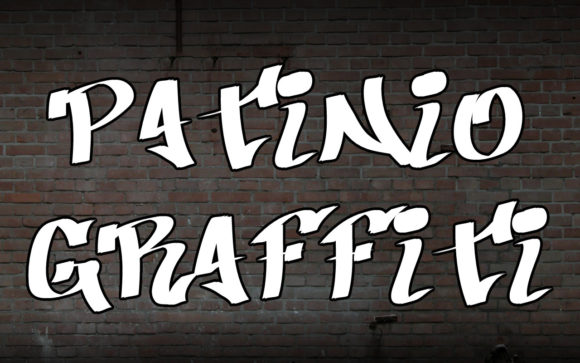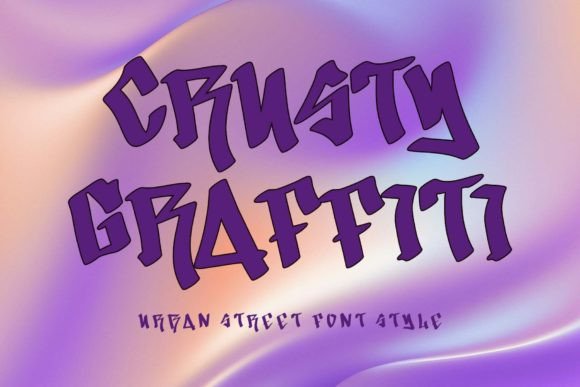
How to Choose Graffiti Fonts for T-Shirt Design
The best graffiti fonts for t-shirt design do more than imitate paint on a wall. They need enough weight to survive printing, enough personality to carry a short phrase, and enough clarity to register while someone is wearing the shirt—not just while the artwork is enlarged on a monitor.
My biggest filter is structure. A wild alphabet can look impressive in a specimen image but turn into an unreadable knot once it is reduced, distressed, arched, or printed over a dark garment. For shirts, I usually favor graffiti fonts with recognizable letter skeletons, substantial strokes, and controlled interior spaces.
The 20 options below cover chunky throw-up lettering, fast tags, distressed street type, blackletter hybrids, monoline alphabets, and color fonts. I have not physically printed and tested these fonts. My recommendations are editorial judgments based on their published character styles, included features, apparent construction, popularity signals, and likely t-shirt applications.
- Best overall: Retro Graffiti
- Best for polished streetwear: Street Wear
- Best for gaming and futuristic apparel: Patinio Graffiti
- Best for rough punk merchandise: Crusty Graffiti
1. Retro Graffiti
My pick for the most versatile bubble-style headline
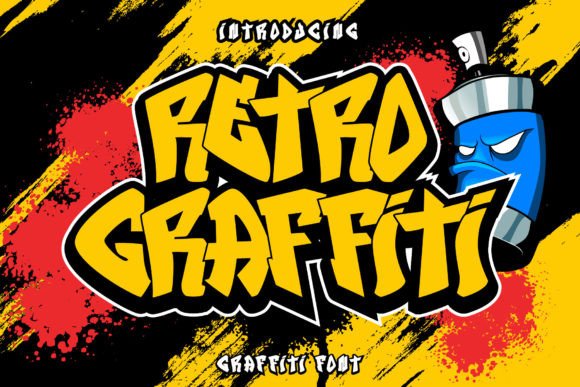
Retro Graffiti is where I would start for a large, friendly word across the chest or back. Its chunky display structure has the inflated energy associated with throw-up lettering, but the characters remain controlled enough for casual apparel, youth collections, skate graphics, and upbeat event shirts.
Because the letters already carry plenty of mass, I would resist adding several heavy outlines. A single contrasting stroke, a compact shadow, or a small handwritten subline should be enough.
Best for: Oversized chest words, youth streetwear, skate-inspired shirts
Key features: Chunky letterforms, rounded graffiti styling, bold display weight
2. 5cent Free Graffiti Font
My pick for an established free option
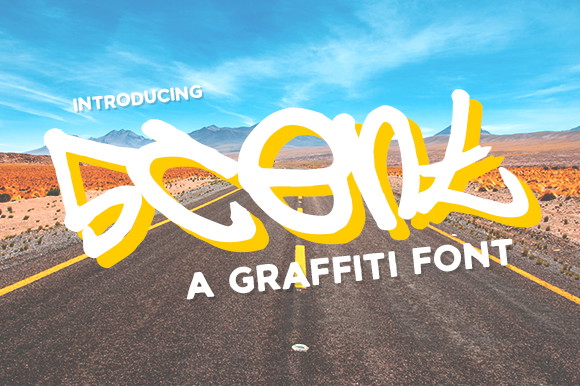
I like this kind of face for one- or two-word designs where the outline of the word is more important than a long slogan. Let the irregular contours create the movement, then use a quieter sans serif for dates, locations, or collection names.
The tradeoff is that a highly stylized word shape can become busy when every letter is given a separate texture, offset, and shadow. Build the hierarchy before adding effects.
3. Street Graffiti
My pick for sportswear-style graffiti
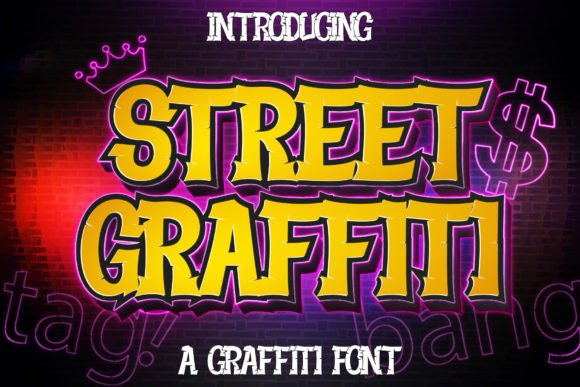
Street Graffiti combines chunky construction with a more forceful, athletic stance. Its product description specifically positions it for t-shirts, sportswear, clothing, logos, and advertising, and its page showed 47 favorites when researched.
I would use it for a team name, neighborhood reference, dance crew, or fictional athletic label. The broad strokes should support a strong two-color treatment: one fill and one outline, perhaps with a restrained inline or shadow.
It is less suitable for a six-line quote. This is a display face that wants to be seen large. Give it a short message and enough negative space to preserve the individual letter shapes.
Best for: Sportswear, team shirts, urban event merchandise
Key features: Bold chunky forms, high-impact display style, clothing-oriented positioning
4. Don Graffiti
My pick for a loose, hand-drawn urban mood
Don Graffiti has a bold handwritten quality rather than a carefully constructed bubble-letter appearance. That makes it useful when a shirt needs to feel expressive, quick, and slightly rough around the edges.
I would pair it with a condensed all-caps sans serif, especially when the design includes a small category label such as “Independent Supply,” “Night Sessions,” or a city and year. That contrast helps the graffiti lettering feel intentional instead of visually untidy.
It could also carry a band name or artist identity, but I would test ambiguous letters carefully before committing to a large print run.
Best for: Band merch, artist apparel, loose handwritten statements
Key features: Bold handwritten style, urban tone, strong visible favorite count
What file format should I use for a graffiti t-shirt design?
Follow the printer’s product-specific requirements. Print-on-demand providers commonly accept high-resolution PNG files for standard garment printing, while vector formats can be useful during editing and for some specialized processes.